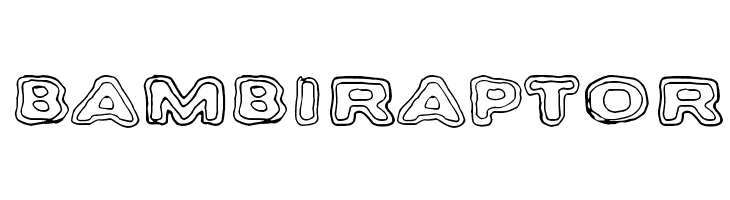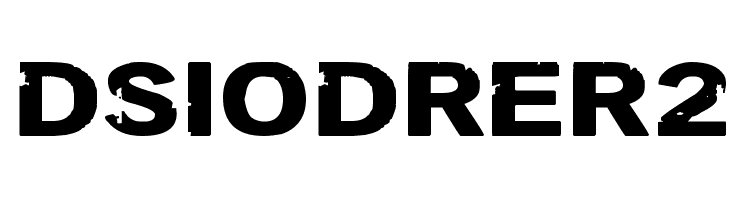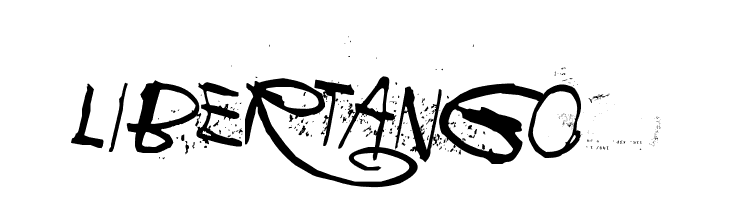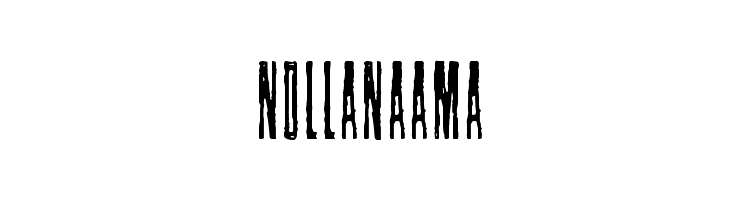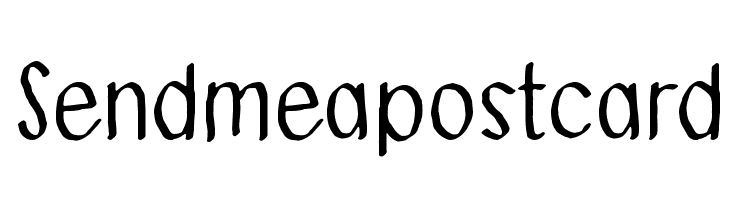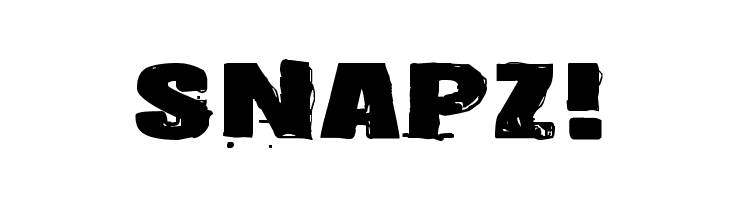
• DSIODRER2
A bold, distressed font with a grunge effect and rugged appearance.
• DSIODRER
A bold, distressed font with a rugged, vintage style.
• Send me a postcard
A playful, handwritten font with irregular strokes and a whimsical style.
• Nollanaama
A rugged, distressed font with tall, narrow characters and a vintage, textured appearance.
• Libertango
A bold, expressive handwritten font with high contrast and dynamic strokes.
• Libertango
A bold, expressive font with a hand-drawn, brush-like style.
• Snapz!
A bold, distressed font with a rugged, grunge aesthetic.
• Wrong time, right place
A bold, distressed font with a grunge, textured appearance.
• Xmas Year Zero
A bold, textured font with a vintage, distressed appearance.
• Bambiraptor
A playful, bold outline font with a three-dimensional appearance.